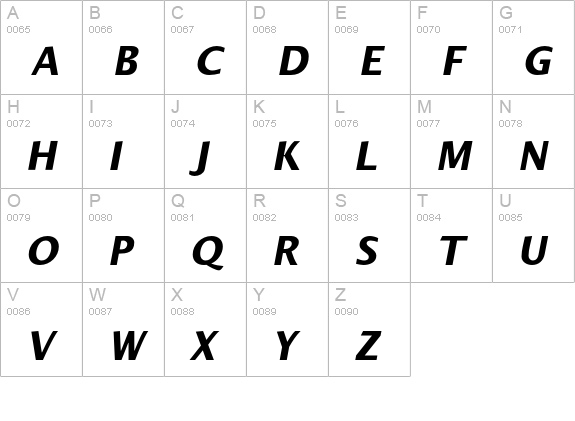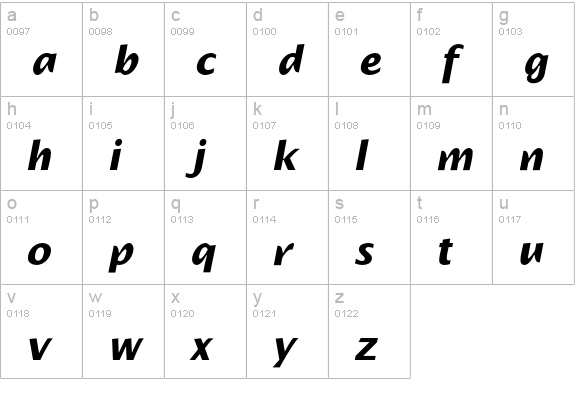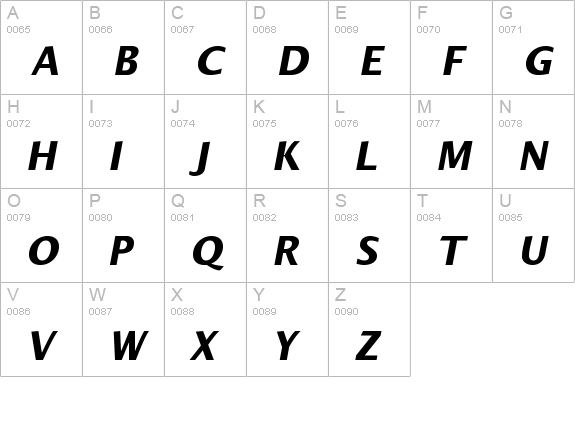
Alphabet2-BoldItalic Font Details
Introducing Alphabet2-BoldItalic font, a sleek and modern typeface that exudes elegance and sophistication. This font combines boldness and italics to create a unique and eye-catching look that is perfect for a variety of design projects. The Alphabet2-BoldItalic font is versatile and can be used for headlines, titles, logos, branding, and more. Its bold strokes and slanted design add a touch of drama and flair to any text. Best of all, Alphabet2-BoldItalic is available for free download at FontsMarket.com. Whether you're a designer, student, or hobbyist, this font is a valuable addition to your collection. Don't miss out on the opportunity to enhance your projects with the stylish Alphabet2-BoldItalic font today!